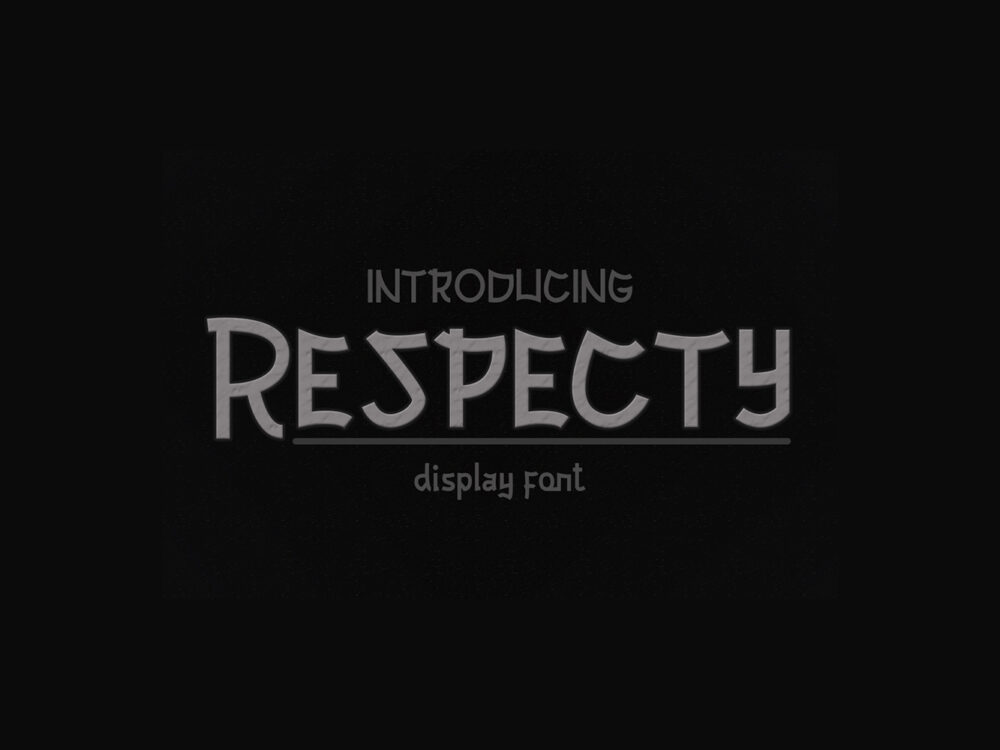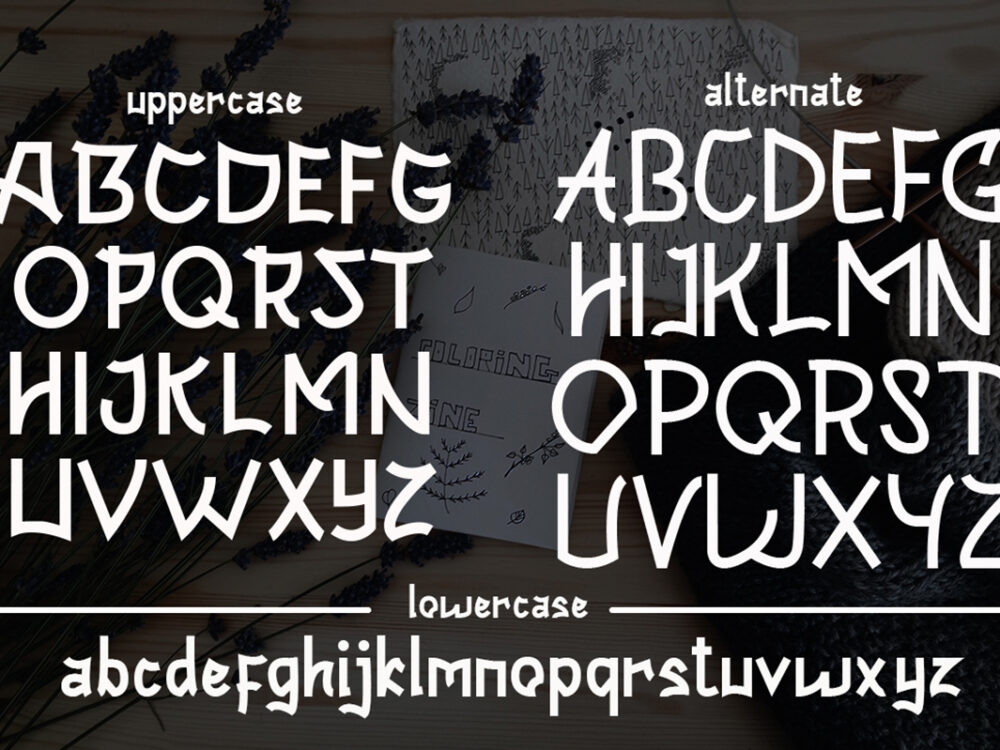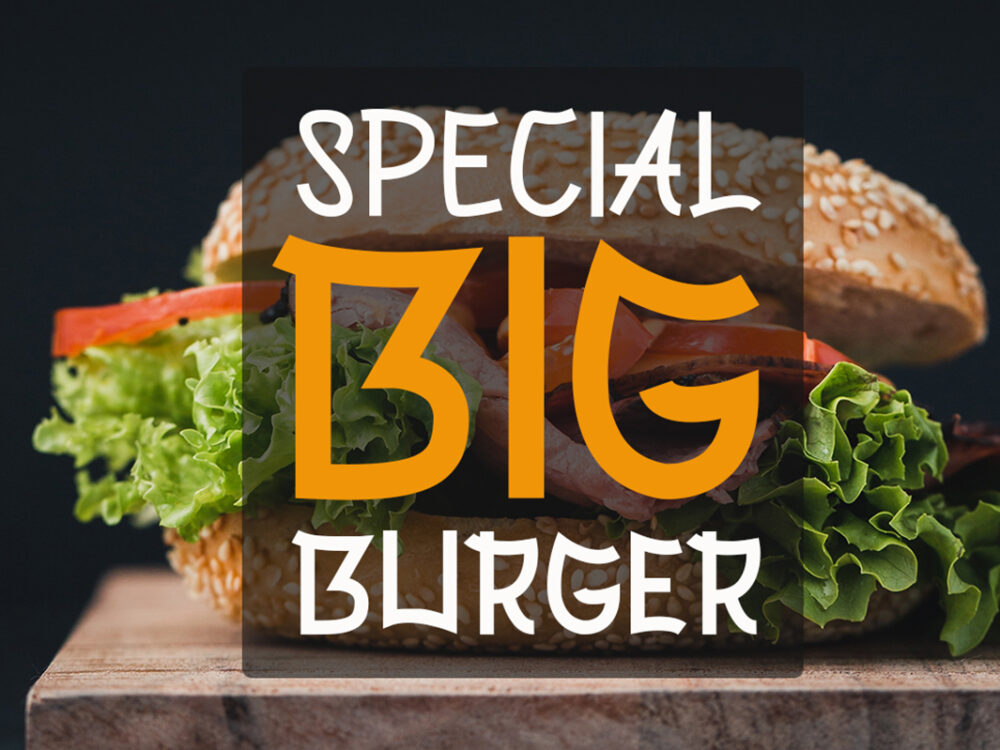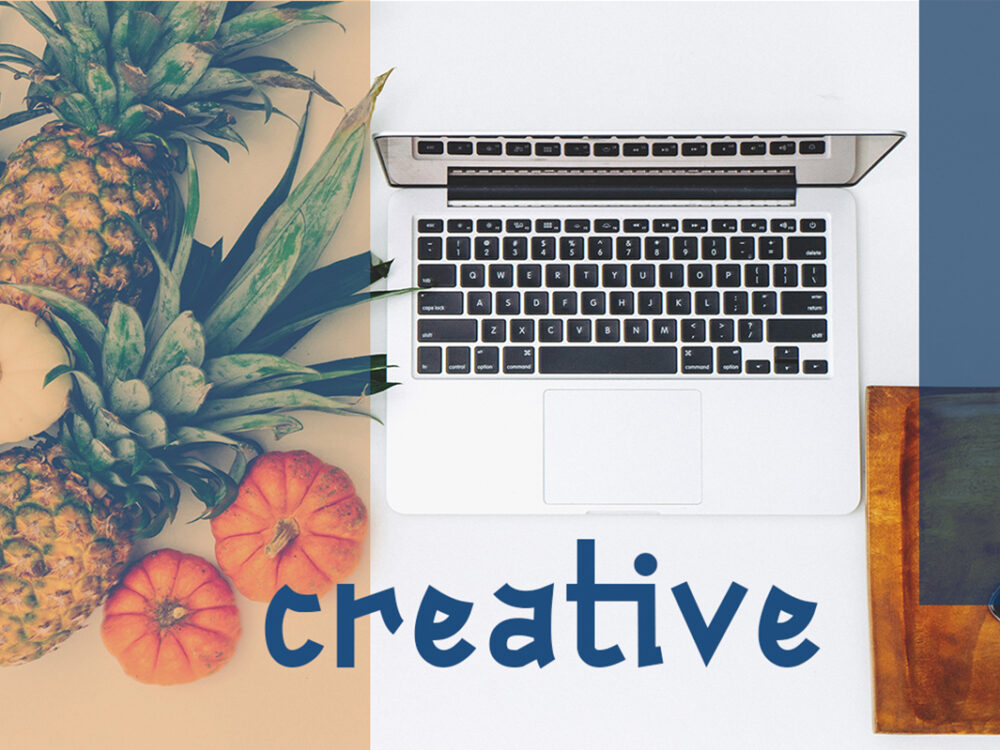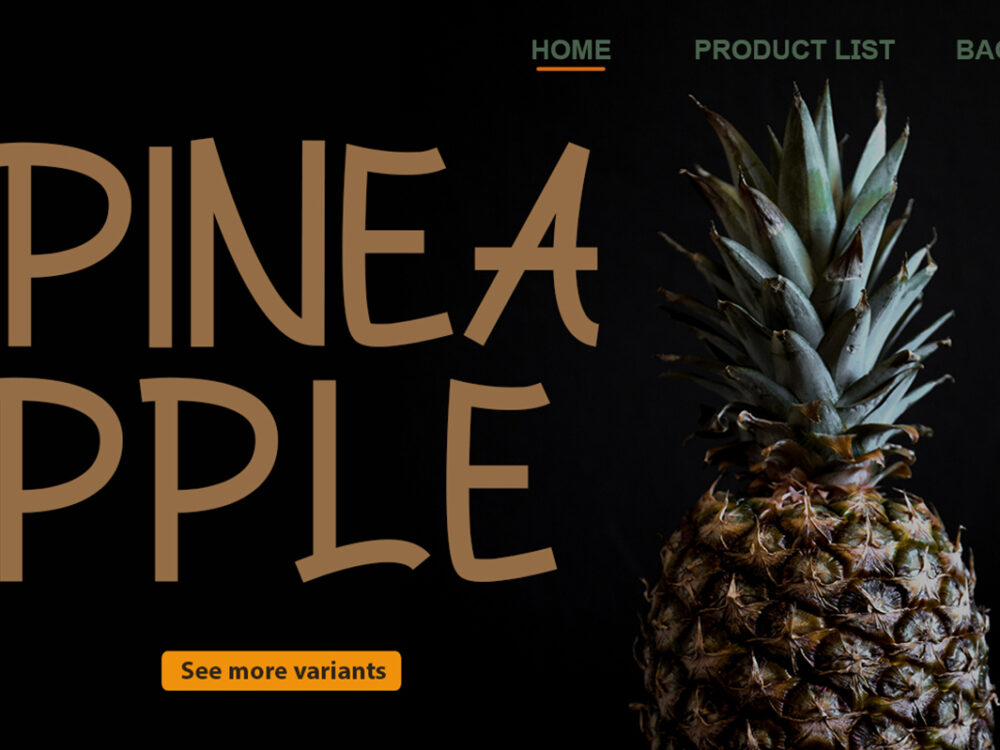
Respecty Display Font Demo
If you need a beautiful display font for posters, book covers, brochures, then Respecty Display Font Demo is perfect for these purposes. Use a combination of uppercase and the alternate cases for the best results. If you wish to use it for commercial work please buy the full version as well.